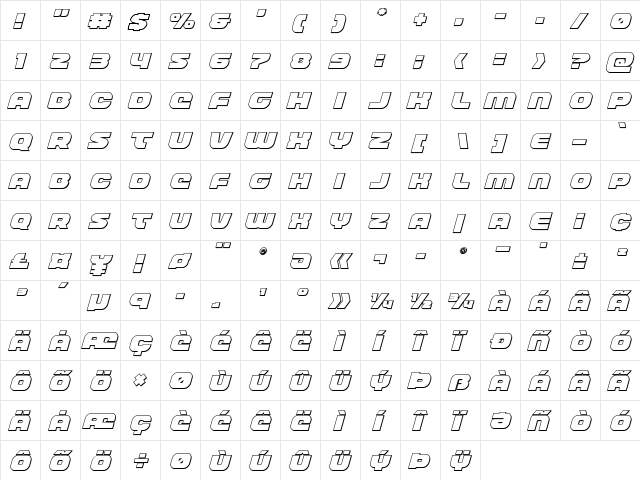
Front Runner Outline Italic Outline Italic
Design Context for Front Runner Outline Italic Typeface
Front Runner Outline Italic brings ornamental detail and strong personality to headlines and identities, where visual impact matters more than quiet functionality. Its italic angle brings a sense of urgency and motion to the letterforms.
Font Pairing: Pair with a clean neutral sans-serif for body copy to let Front Runner Outline Italic's character lead without overwhelming the composition.
Pro Tip: Use Front Runner Outline Italic exclusively at display sizes — it was designed to be seen, not read at length. Let a neutral companion handle body copy.